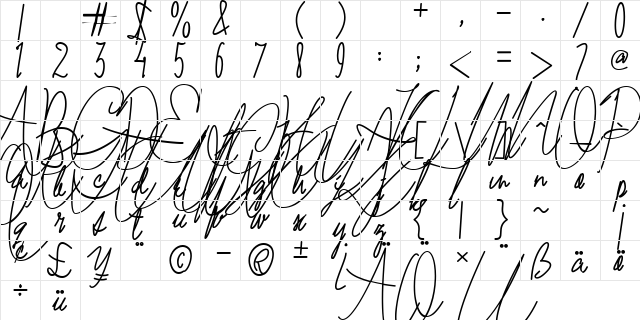
Mae Nitta Personal Use Regular
Design Context for Mae Nitta Personal Use Typeface
Mae Nitta Personal Use is a composed and adaptable typeface that performs quietly and consistently across a wide range of design contexts.